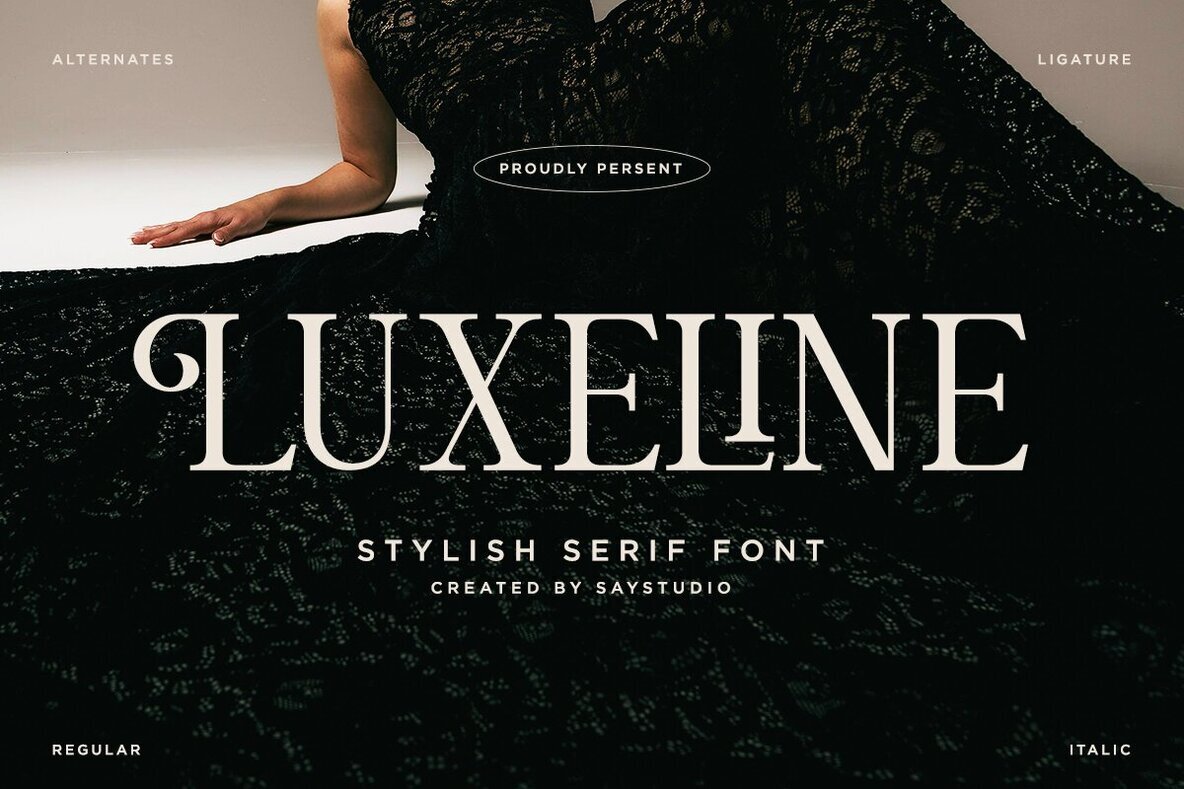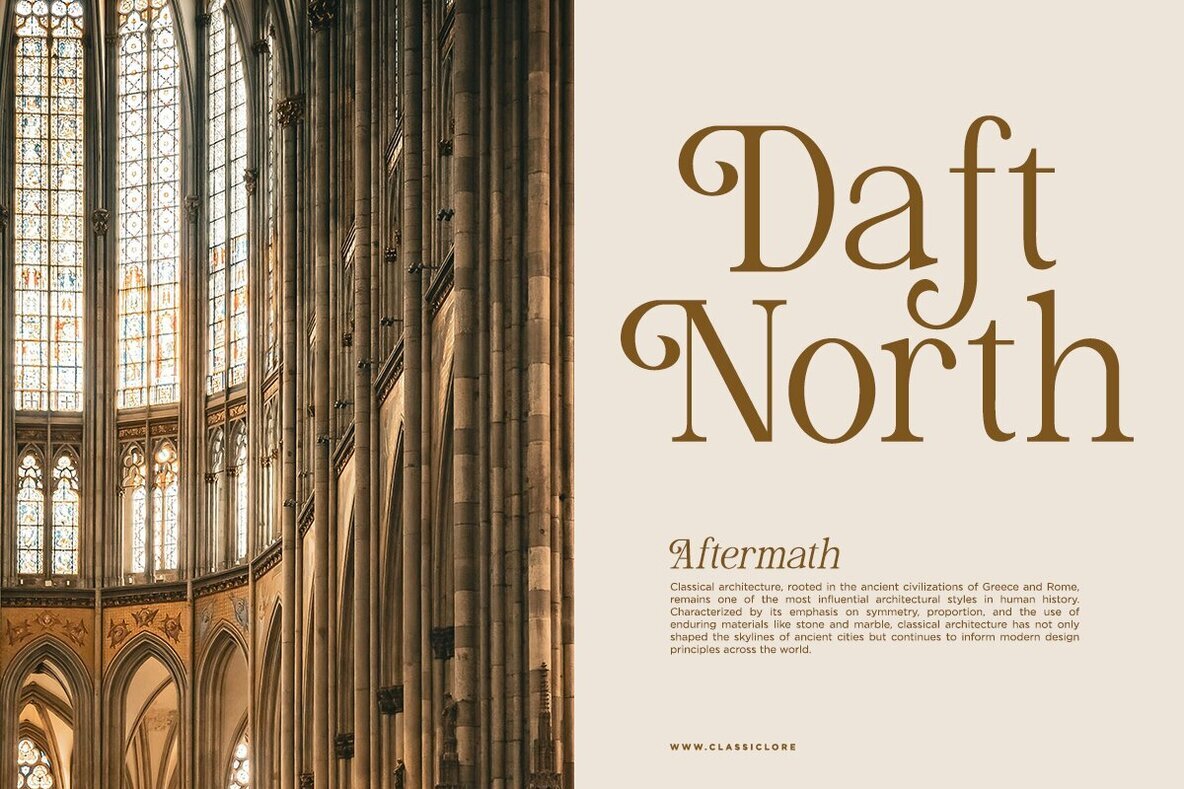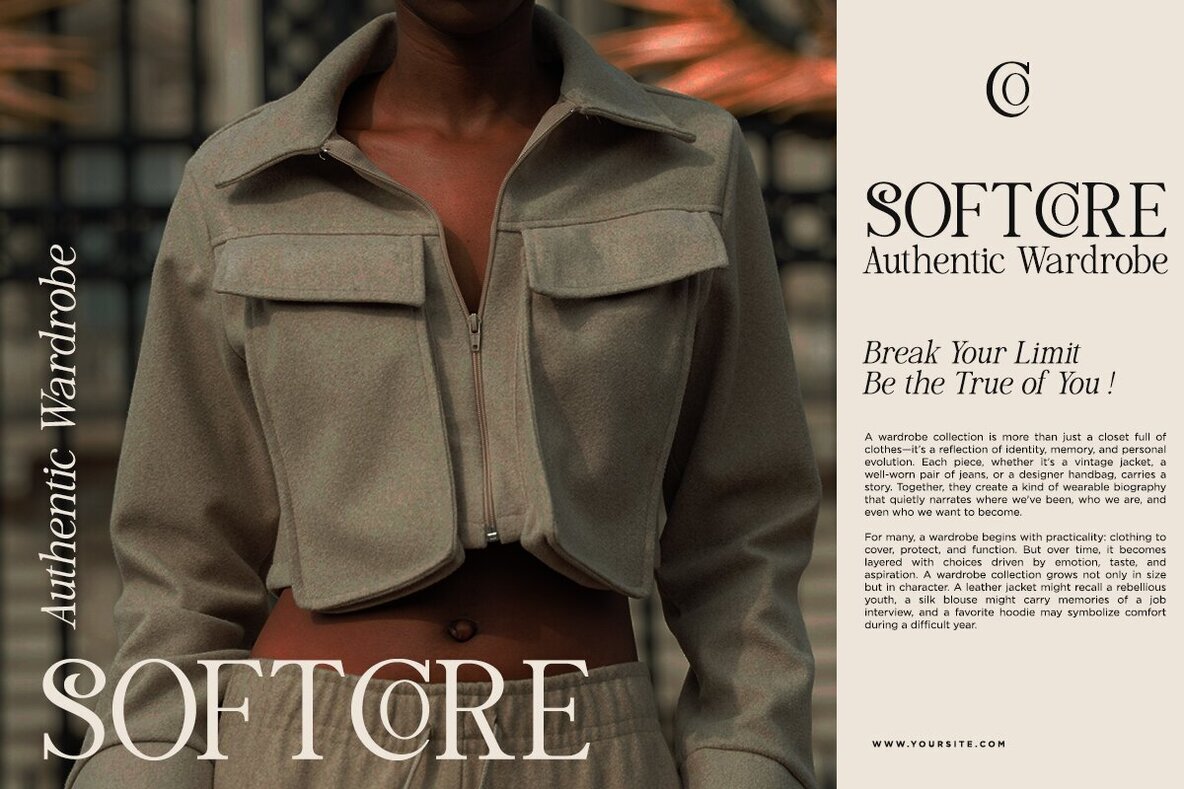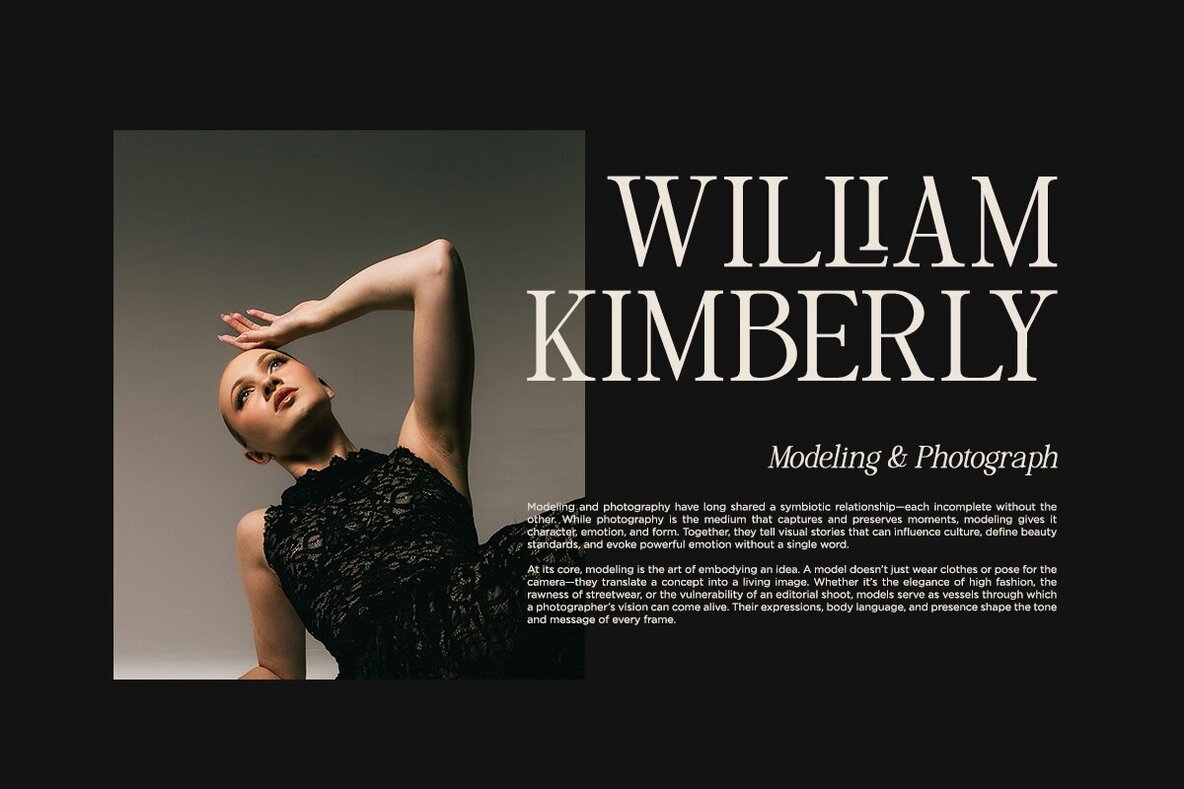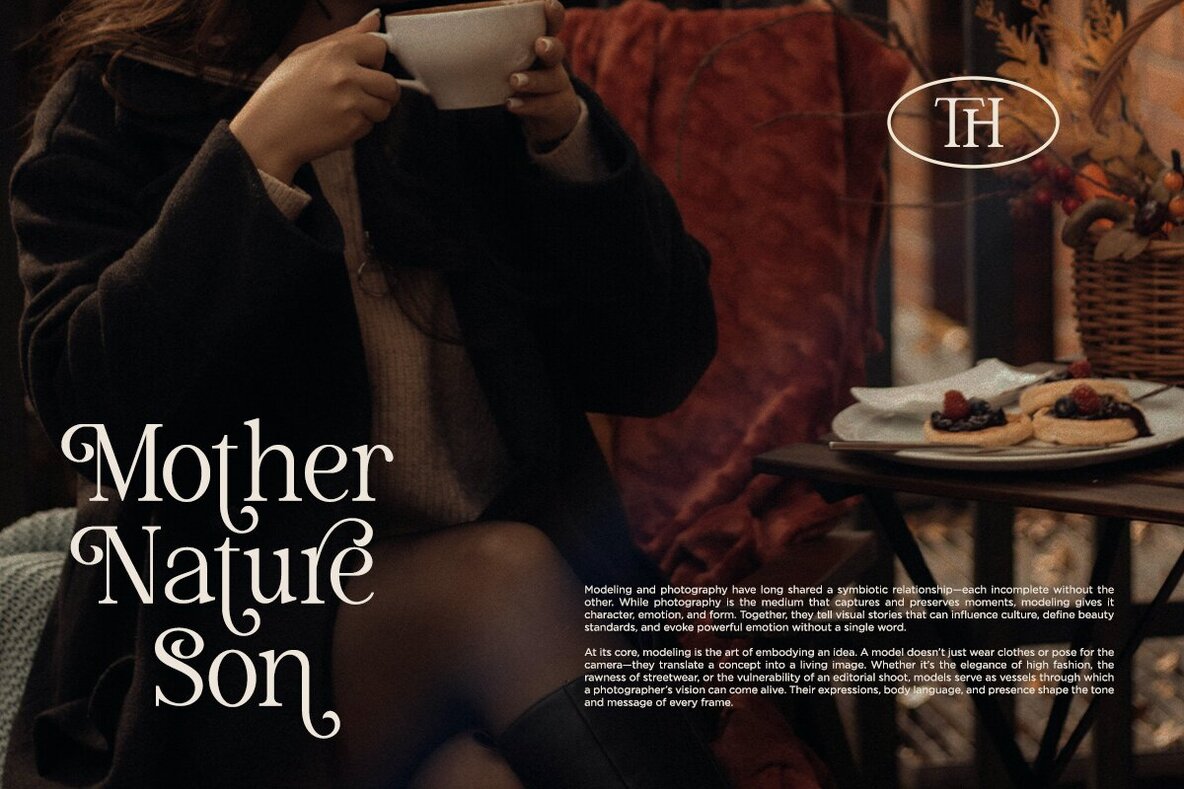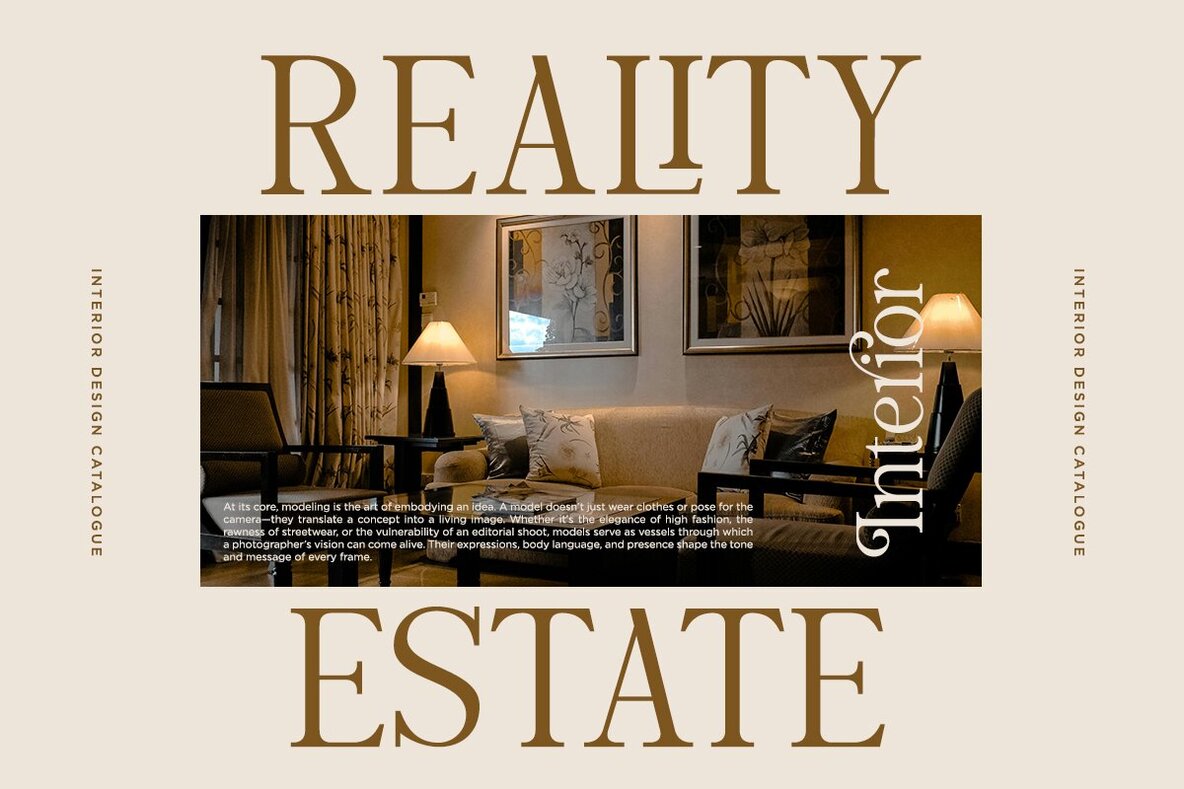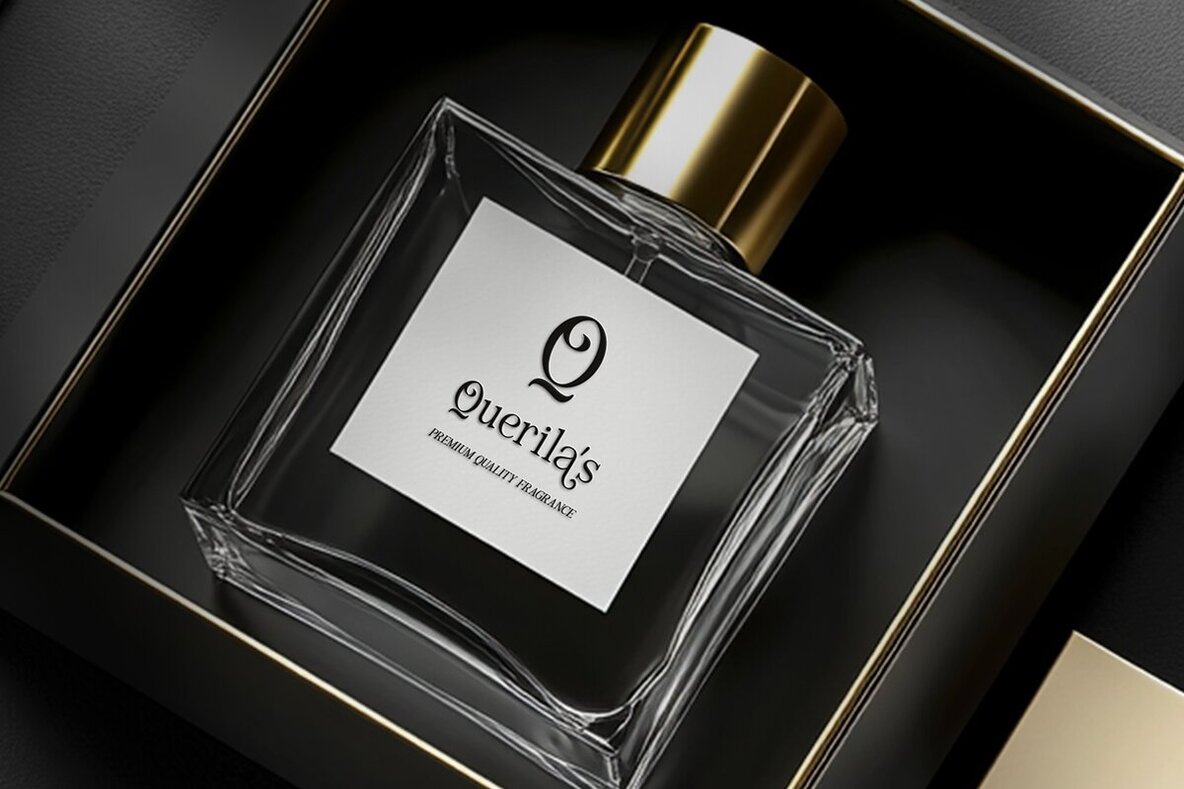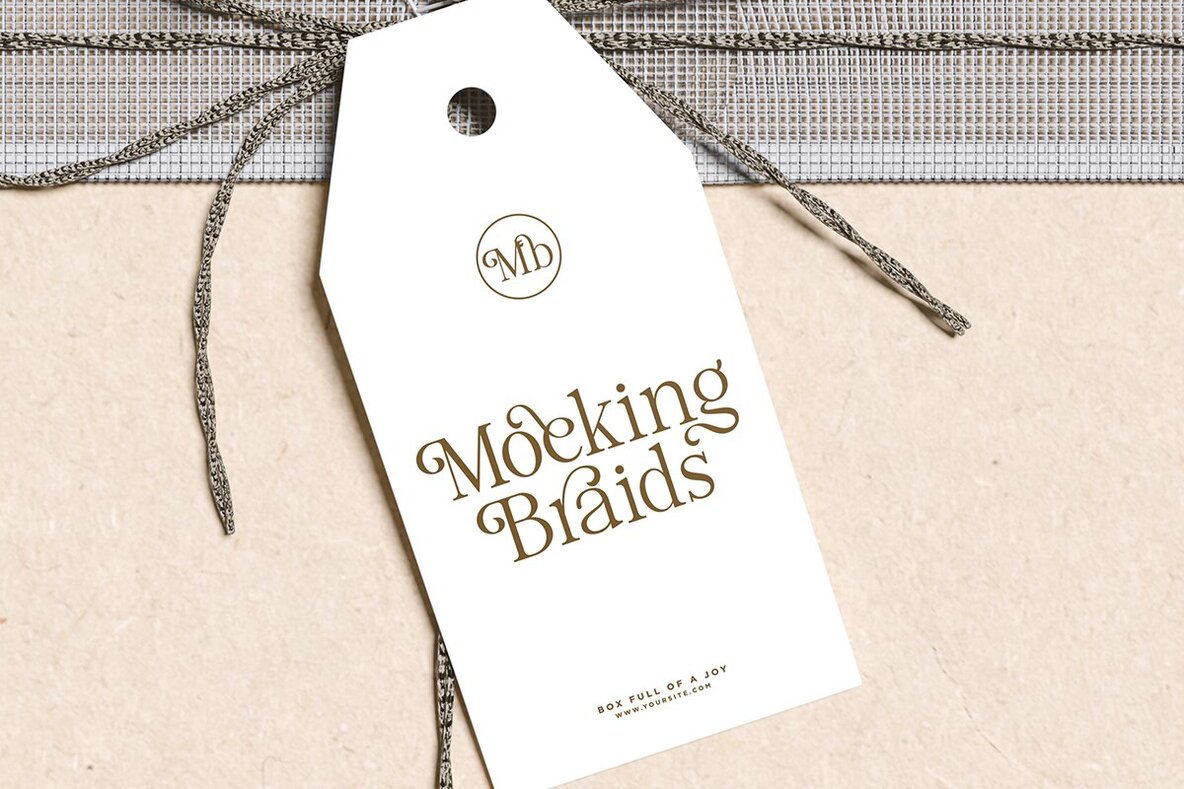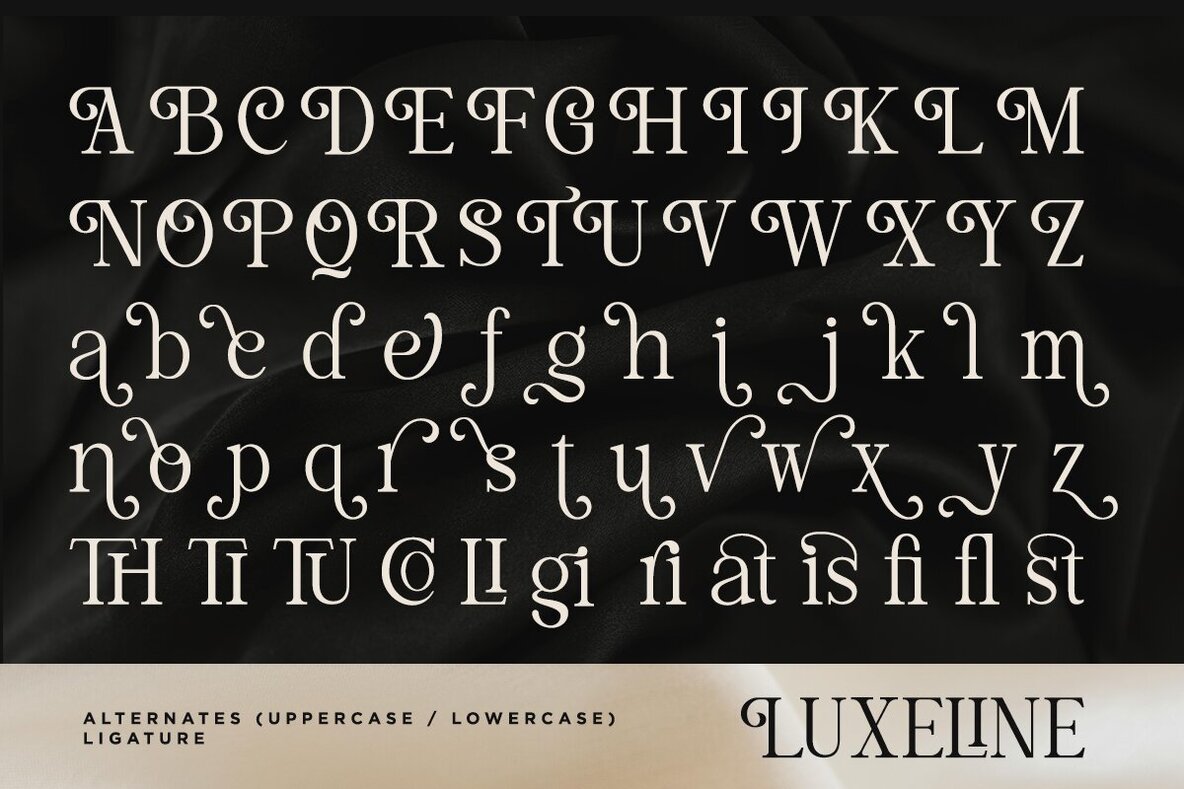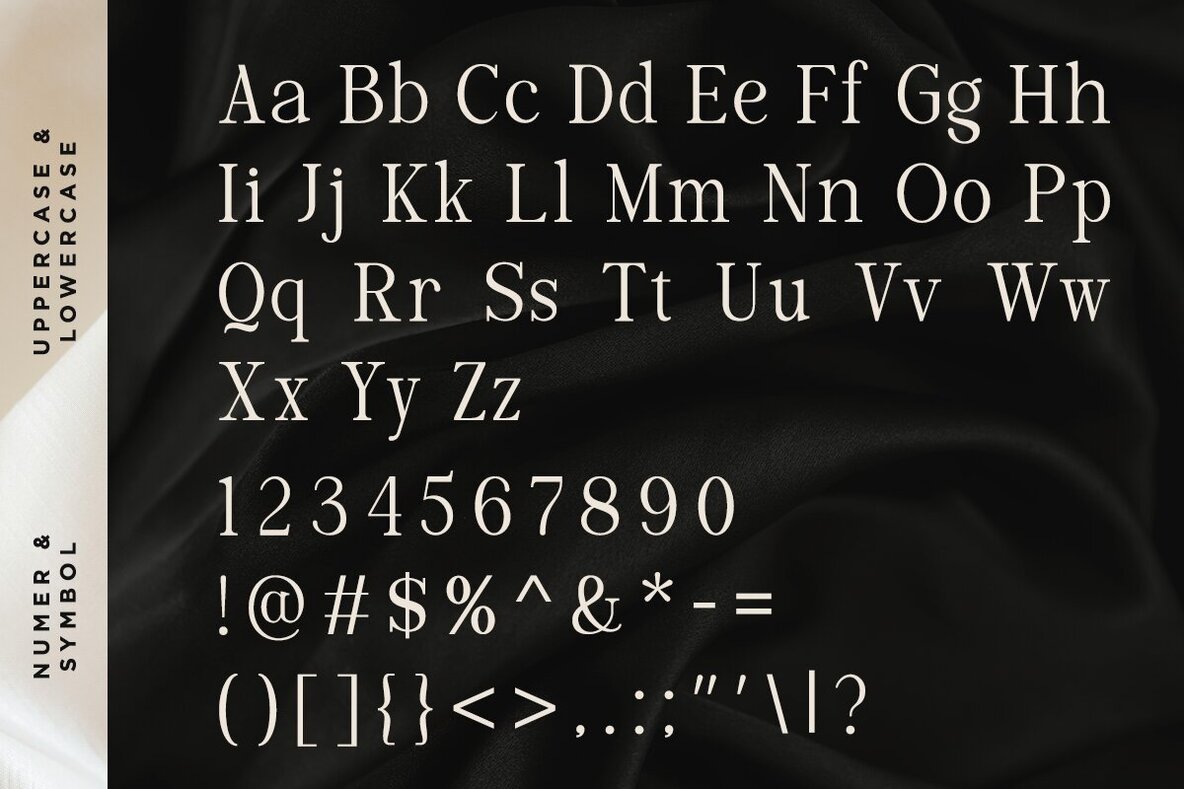
Luxeline Font
Luxeline is a serif font distinguished by its refined curves and balanced proportions. Designed for designers who value subtle detail and a commanding presence, Luxeline navigates the intersection of classical sophistication and contemporary clarity. Its elegant structure lends an unmistakable sense of confidence and sophistication to any project, making it a reliable choice for those seeking a luxury-inspired aesthetic. This font is well suited for branding, editorial layouts, wedding invitations, and product packaging. Its versatility makes it valuable for design work ranging from fashion-centric campaigns to considered social media content.Luxeline: A Refined Serif for Modern Branding